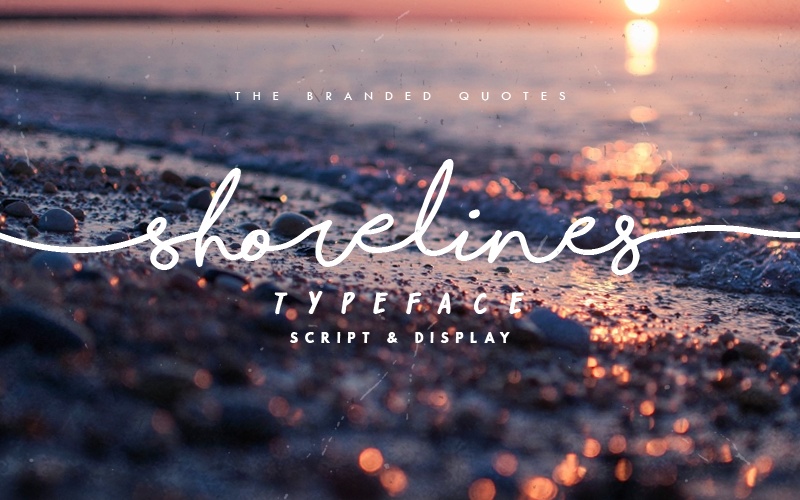
Shorelines Script Font
Shorelines can look as delicate as a girl’s handwriting, but also stands out boldly like waves crashing on the shore. If you’re a photographer looking for a signature touch, a blogger, or even a pro surfer, Shorelines Script is made for you. Its uneven heights and spacing give your work a natural, handwritten feel.
Shorelines Script Handwritten Font
Shorelines Script has a really interesting handwritten feel, especially with its natural spacing and varied Letras Cursivasletter heights. I like how the combination of uppercase, lowercase, and swashes can create a more personalized look. It’s a great example of how the right cursive style can make simple text feel more creative and expressive.